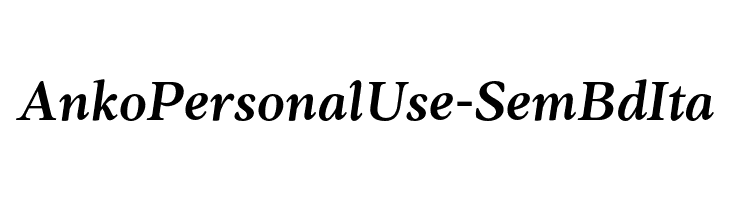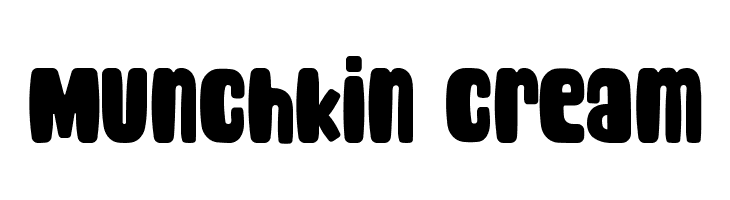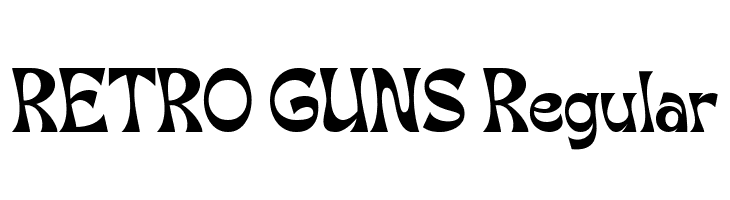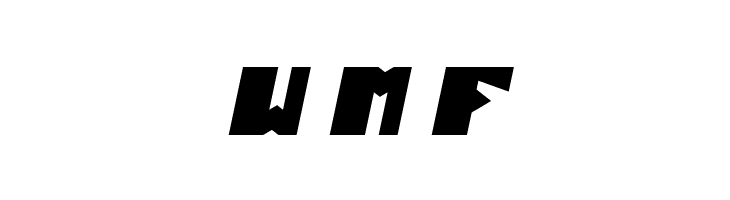
A bold, italic font with sharp angles and a dynamic, modern style.
A playful, hand-drawn font with irregular strokes and a whimsical style.
A modern, geometric font with sharp angles and clean lines, ideal for display use.
A bold, geometric font with high contrast and distinctive shapes.
A playful, bold font with thick, rounded strokes and a whimsical style.
A fluid and elegant script font with connected letterforms and a handwritten style.
A playful, decorative font with balloon and confetti motifs, perfect for festive projects.
A dynamic and elegant script font with bold, flowing letterforms.
A bold, geometric font with a distinctive striped gradient effect.
A semi-bold italic serif font with a modern and elegant style.